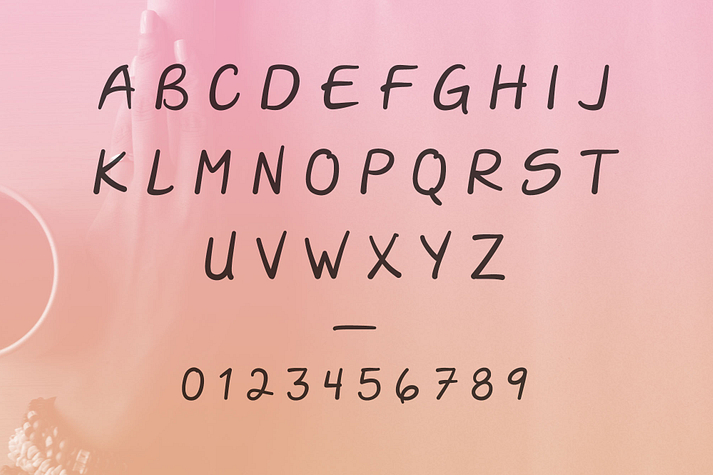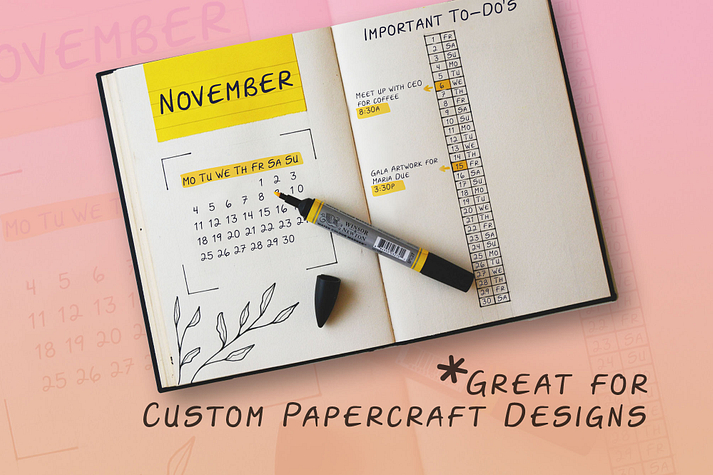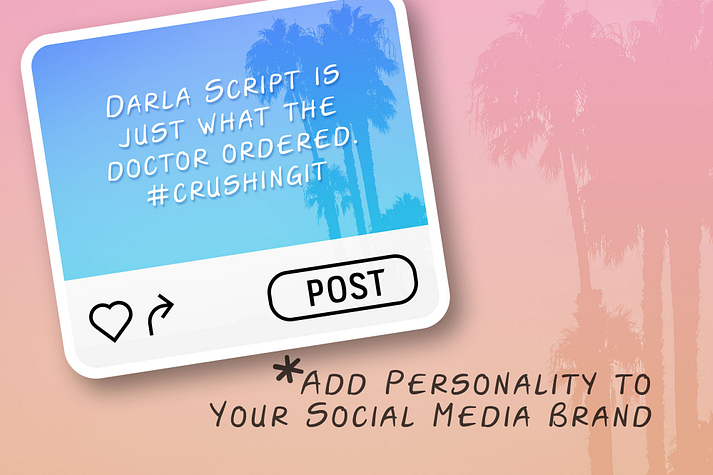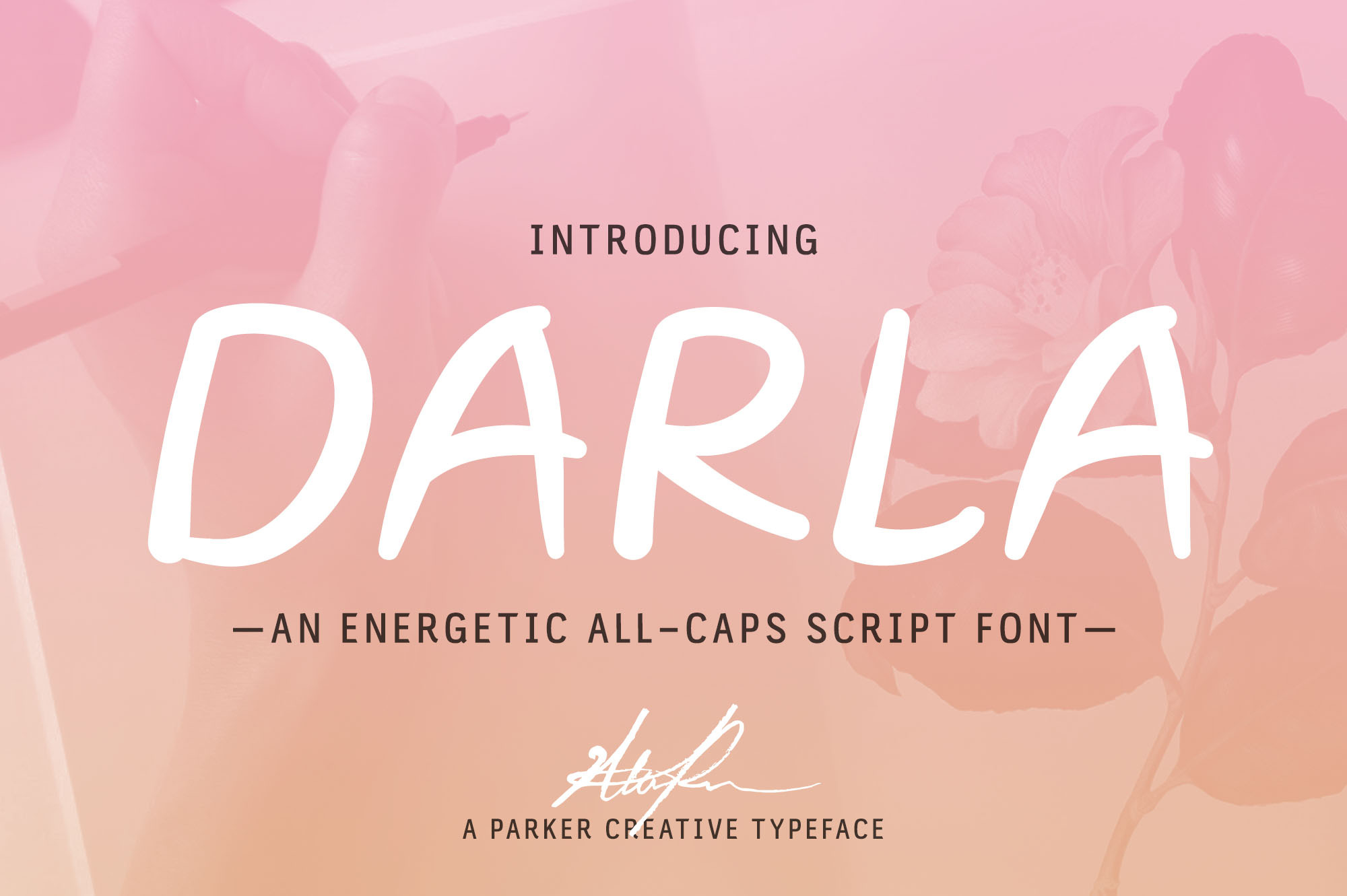
Darla Script
Darla Script is a font family published by Parker Creative.
Darla Script is a feminine all-caps font created from natural handwriting. Featuring custom lettering, Darla’s unique and cute style works well for custom projects like logo design, graphics, social media, greeting cards, and more.
Unconventional and modern, Darla’s use of free hand lines creates a fun look and feel, which helps content flow beautifully on the page or screen.